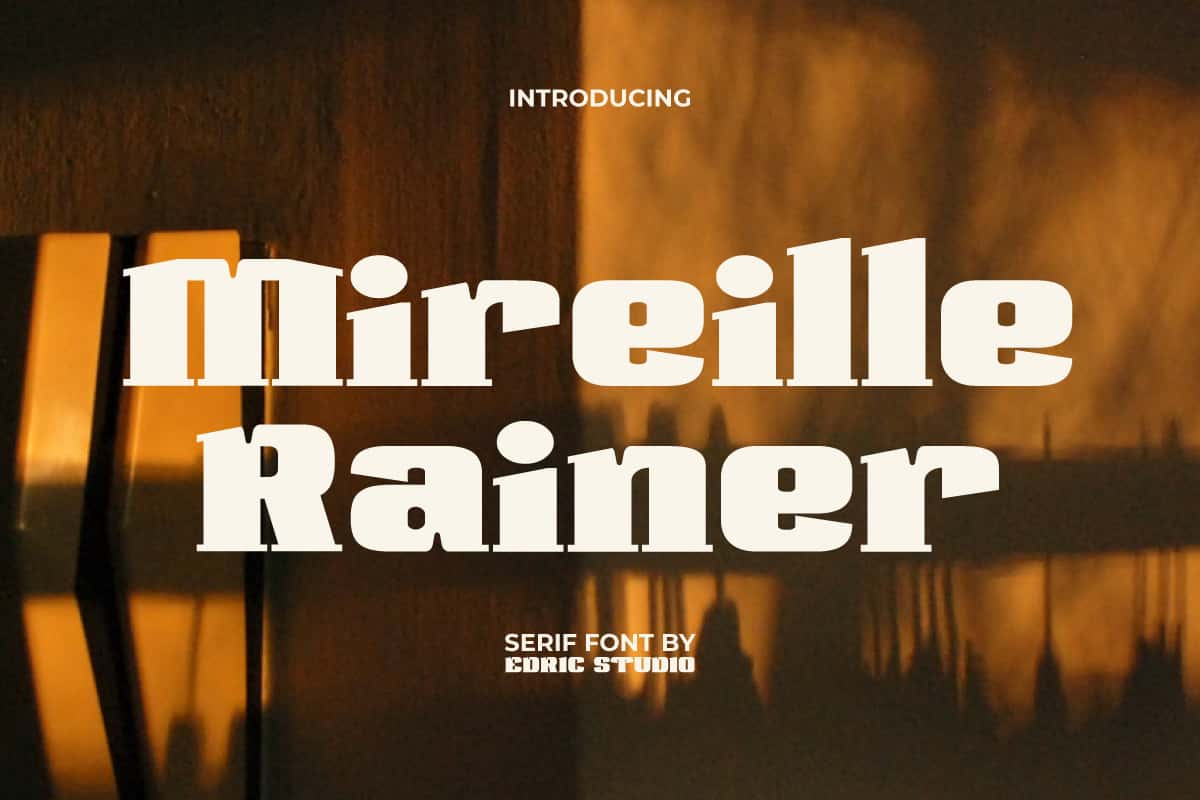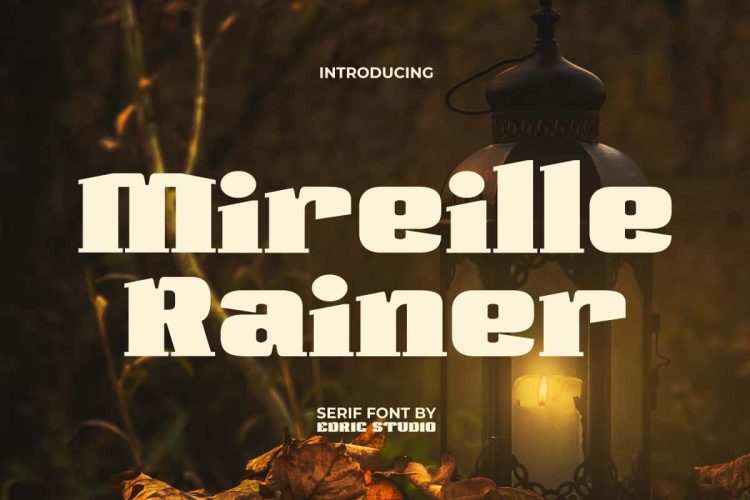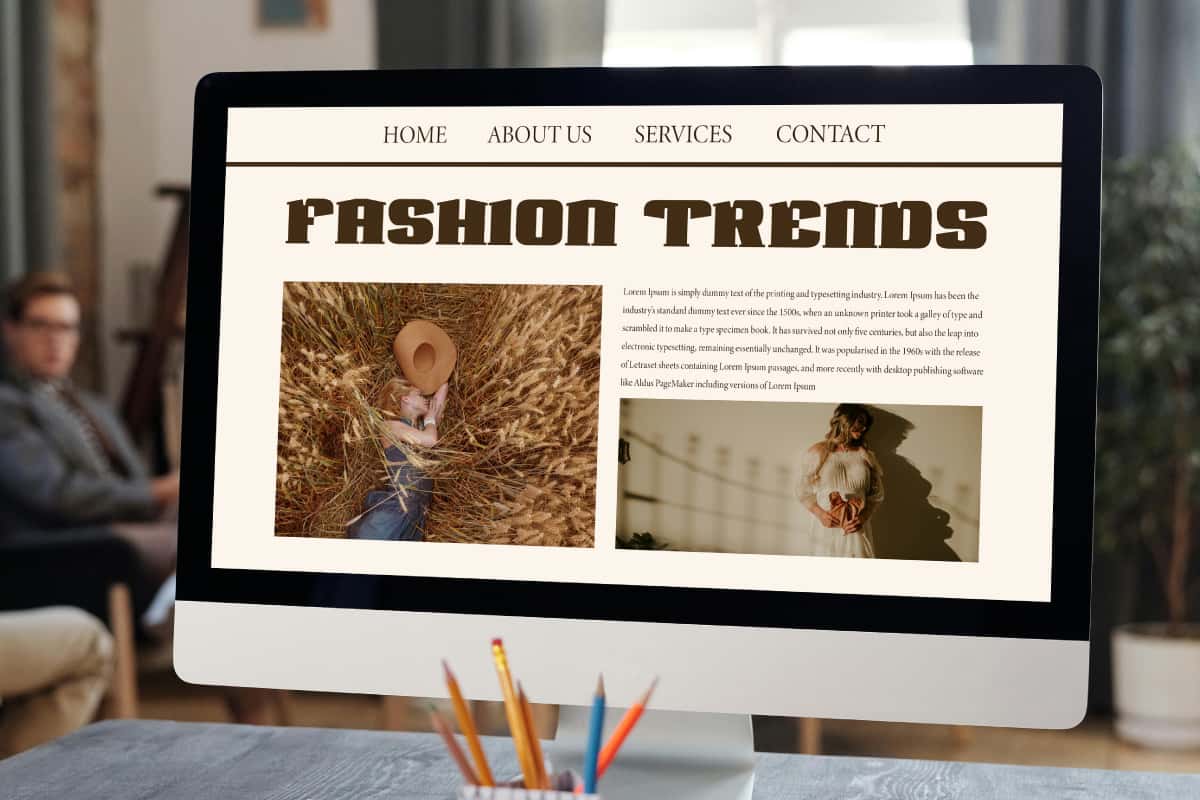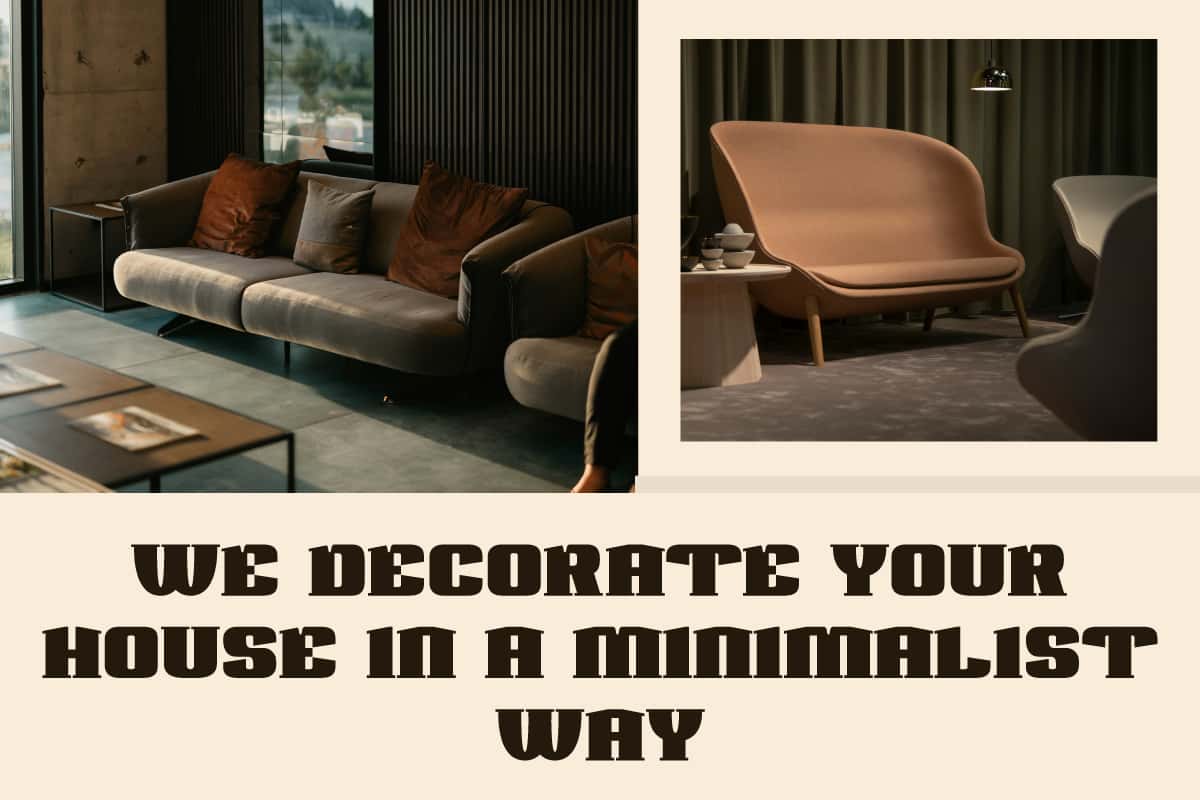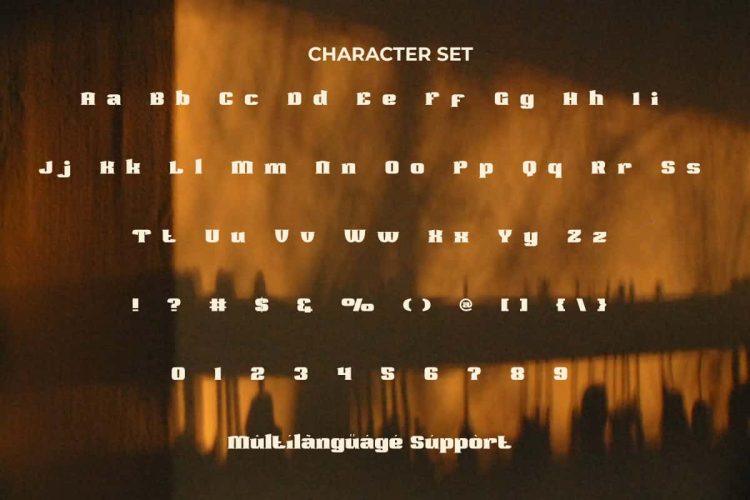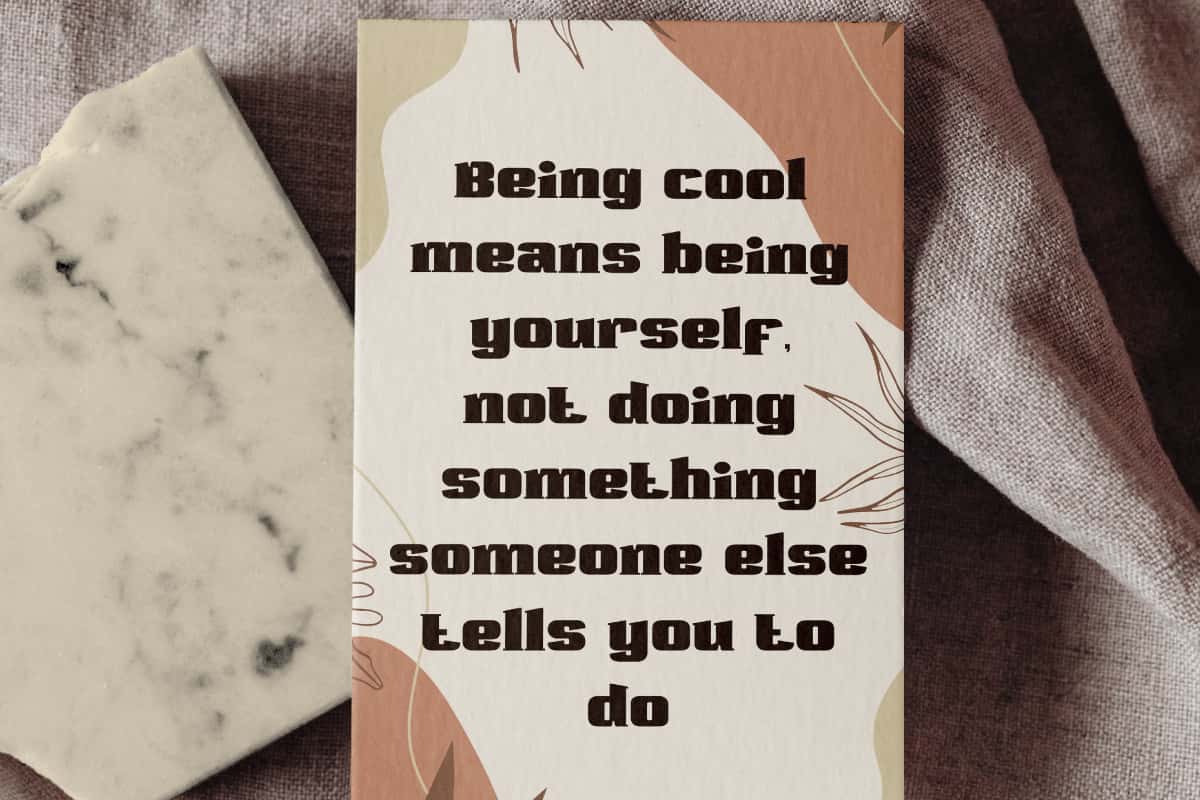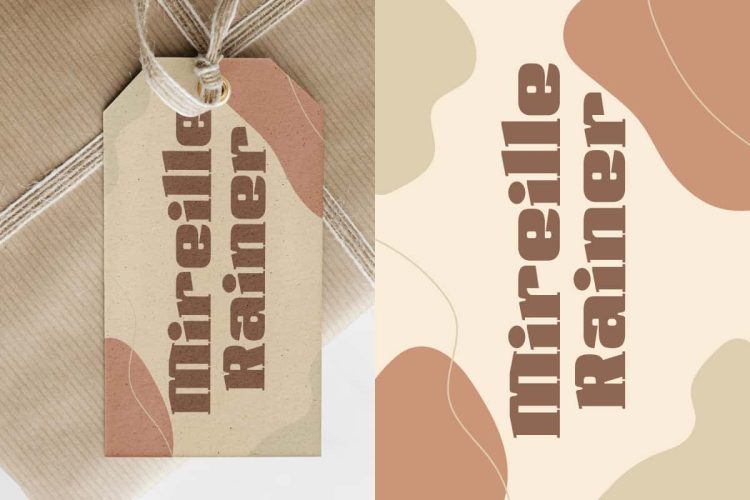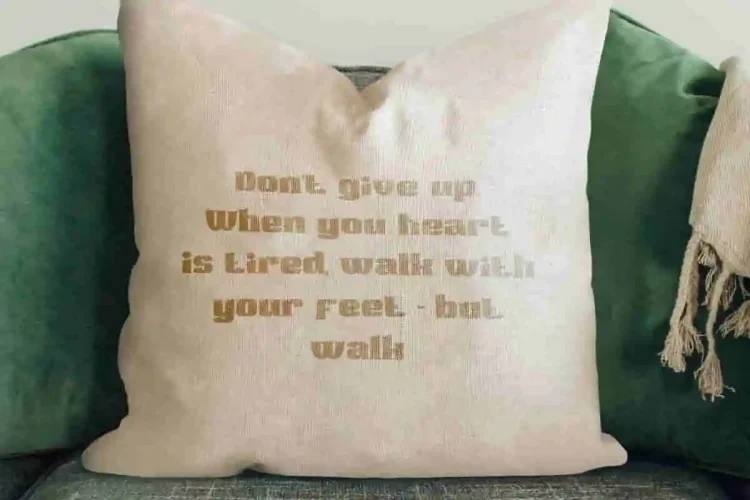
Mireille Rainer Font
Mireille Rainer Font is a serif display font with a classic feel that brings a different style to the art of typography. It is a great choice for anyone looking to add a touch of style to a bold look. Perfect for apps, banners, blogs, brand logo, brochure, hangtag label, headers, mockup, printed materials, quotes, stationery, template, title, website, and much more.
Mireille Rainer Font includes a complete set of Uppercase and Lowercase letters, Numbers, Punctuation, and Symbols. The classic casual font is packaged in a contemporary style, making it a fun serif to play with. It will create beautiful combinations just by mixing in the words you want! Perfect for clothing brand, fashion, graphic designer, handicraft, home furniture, interior design, photography, and much more.